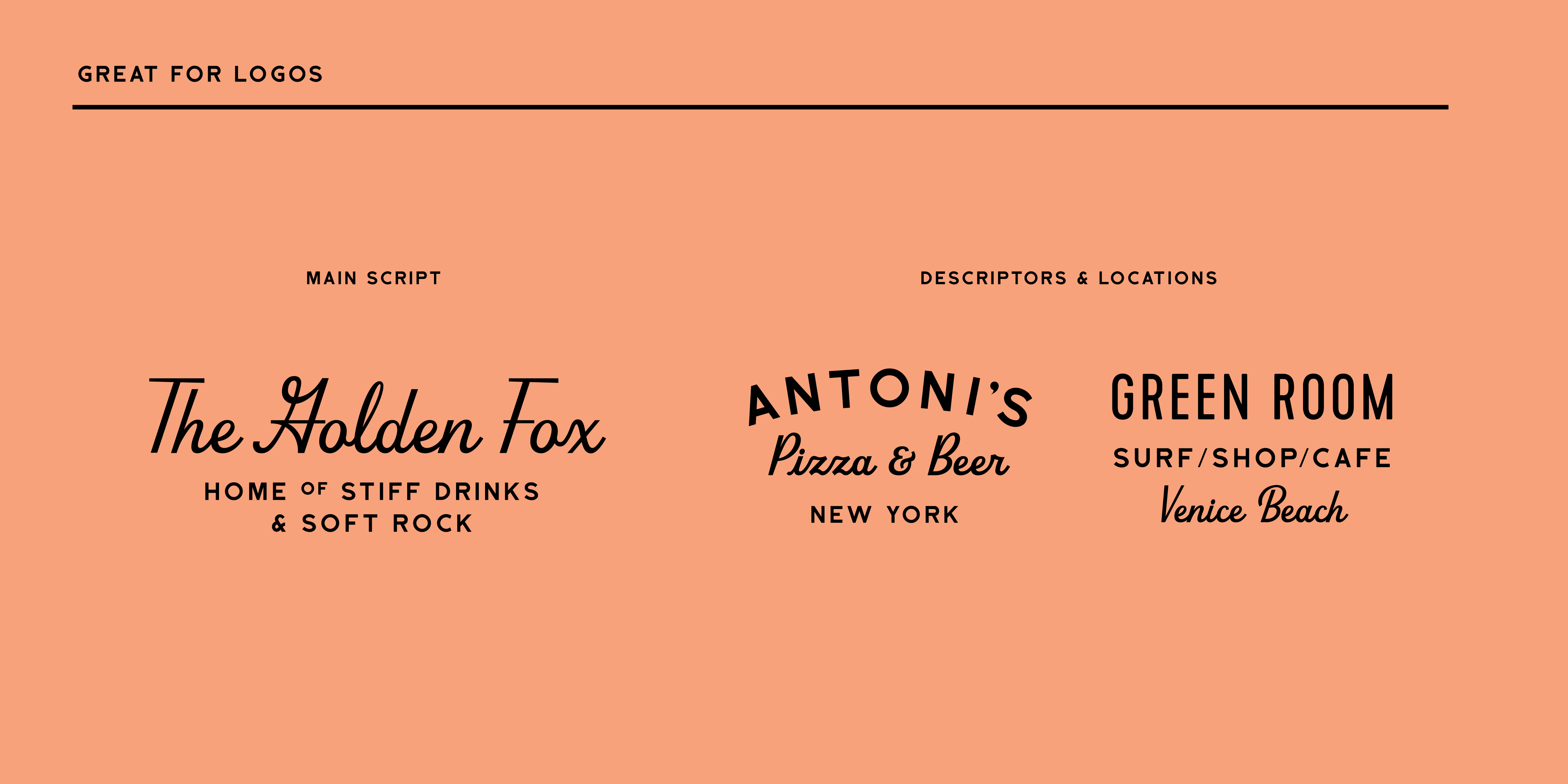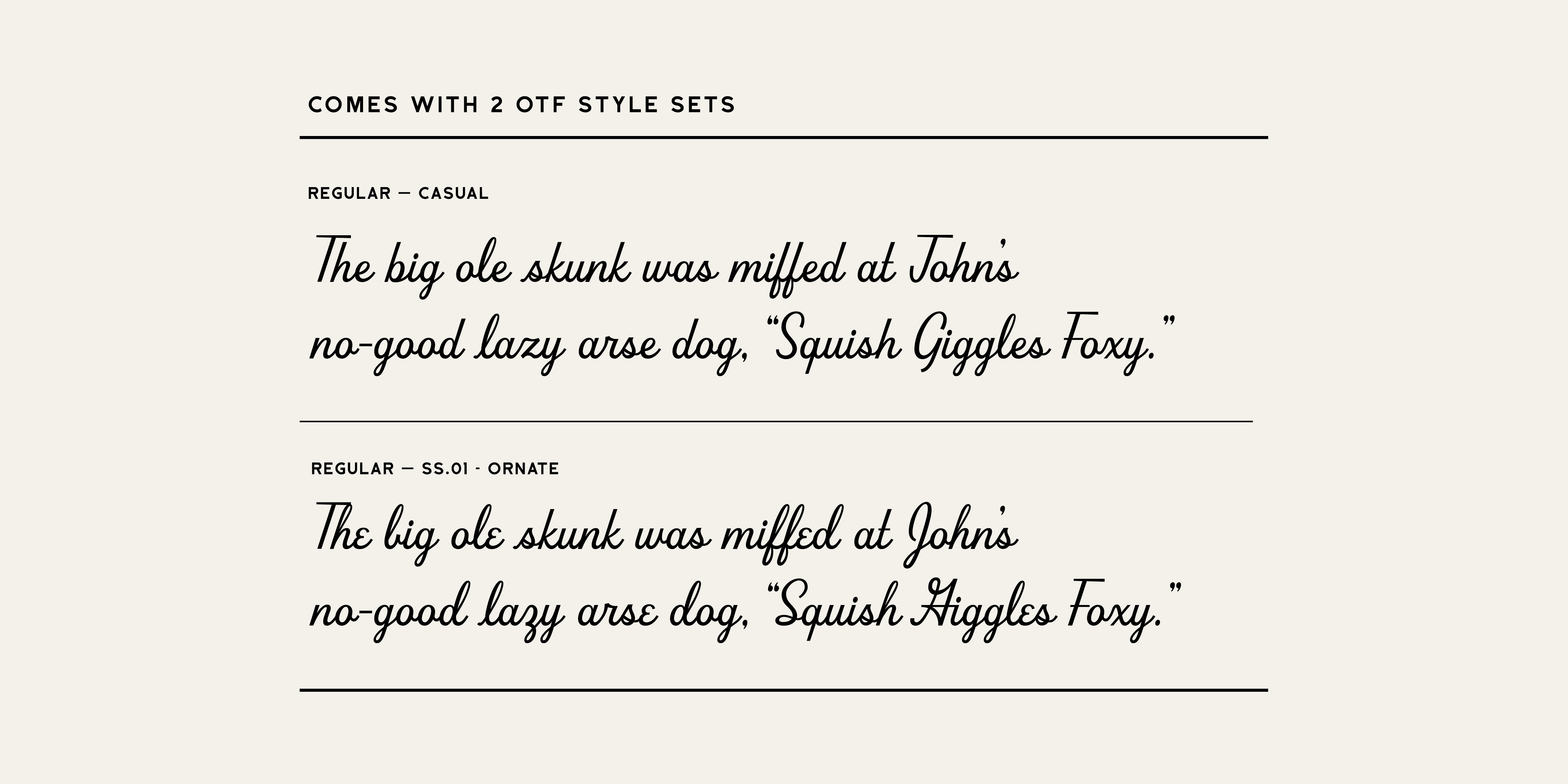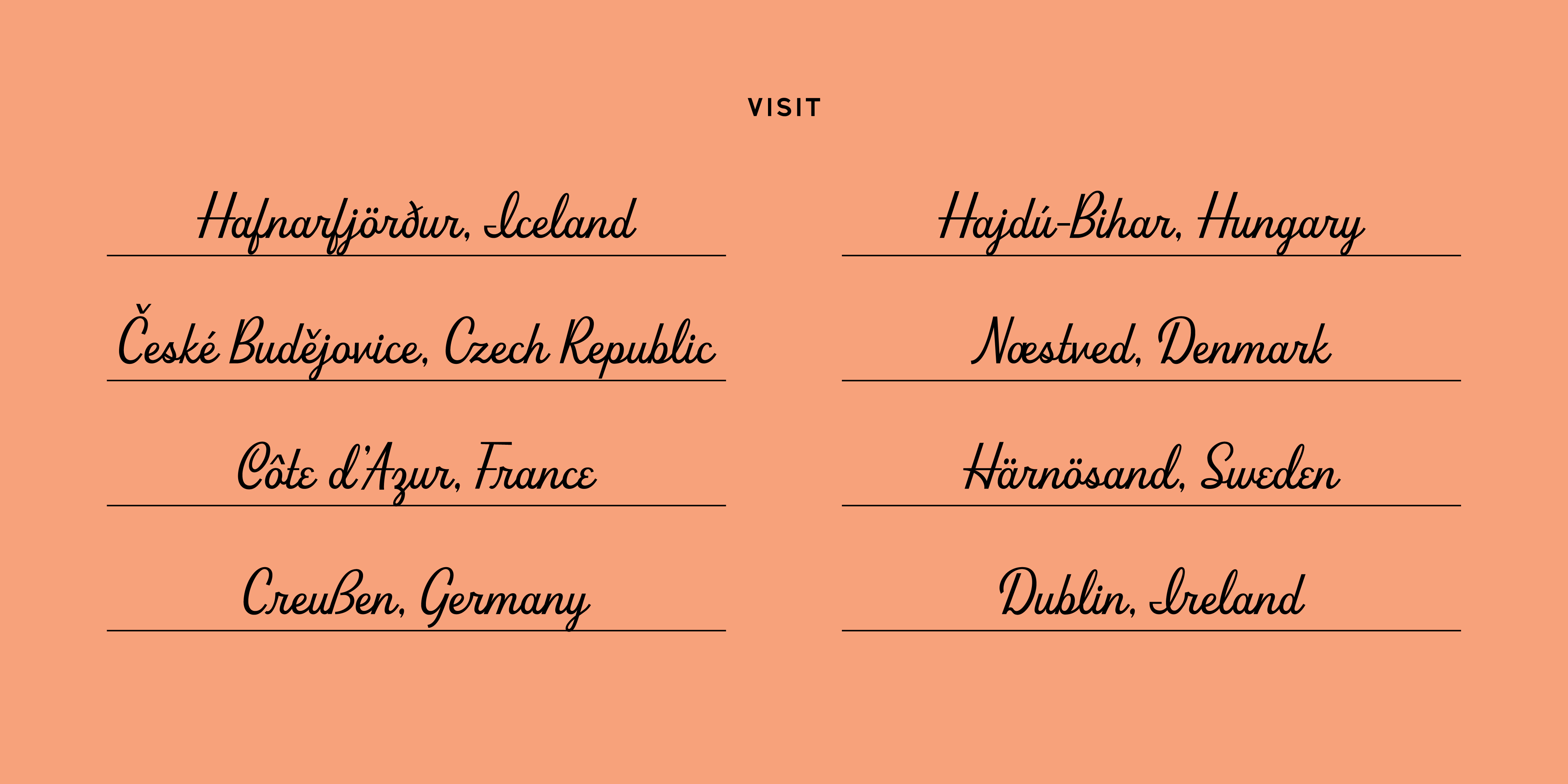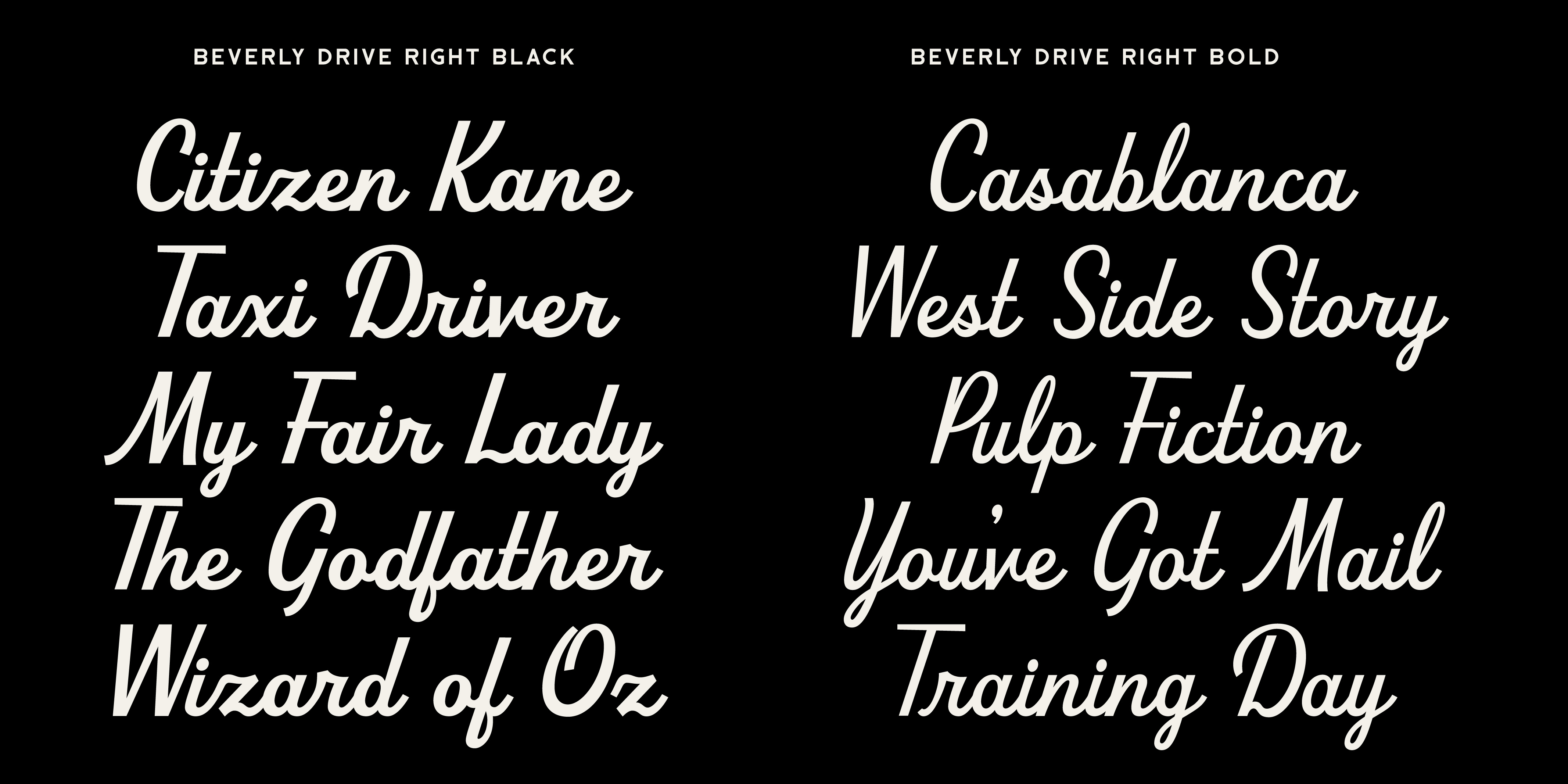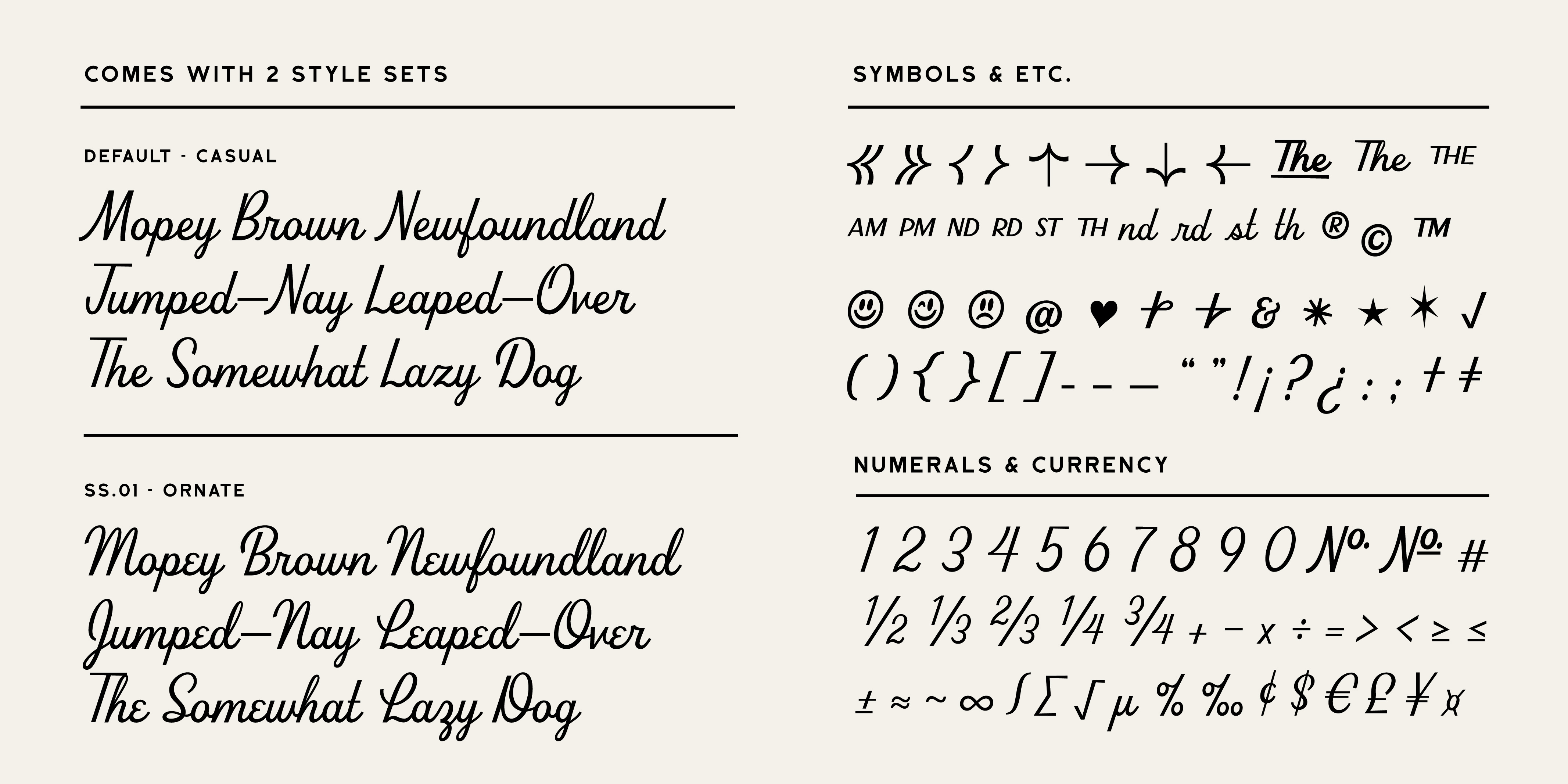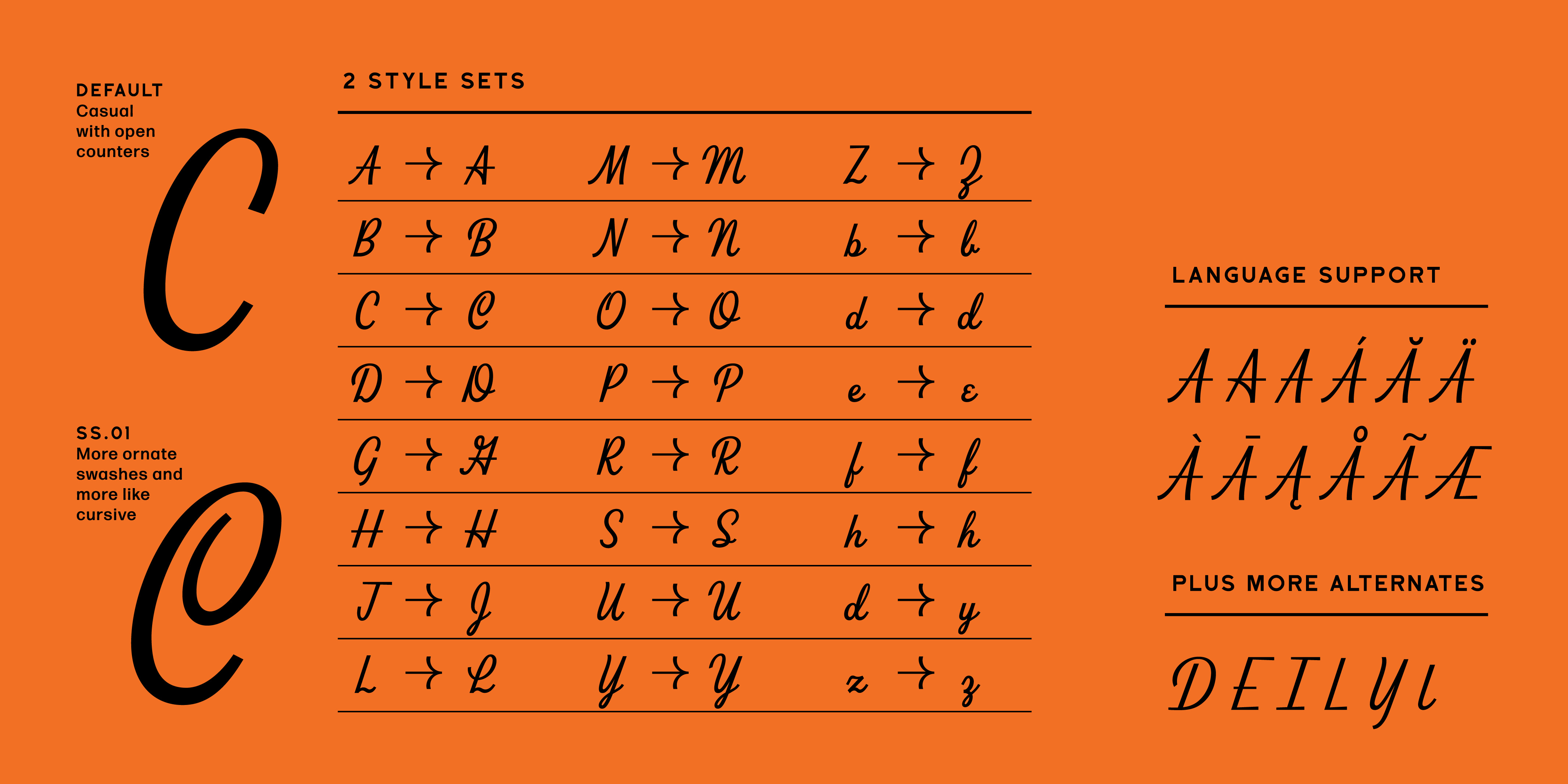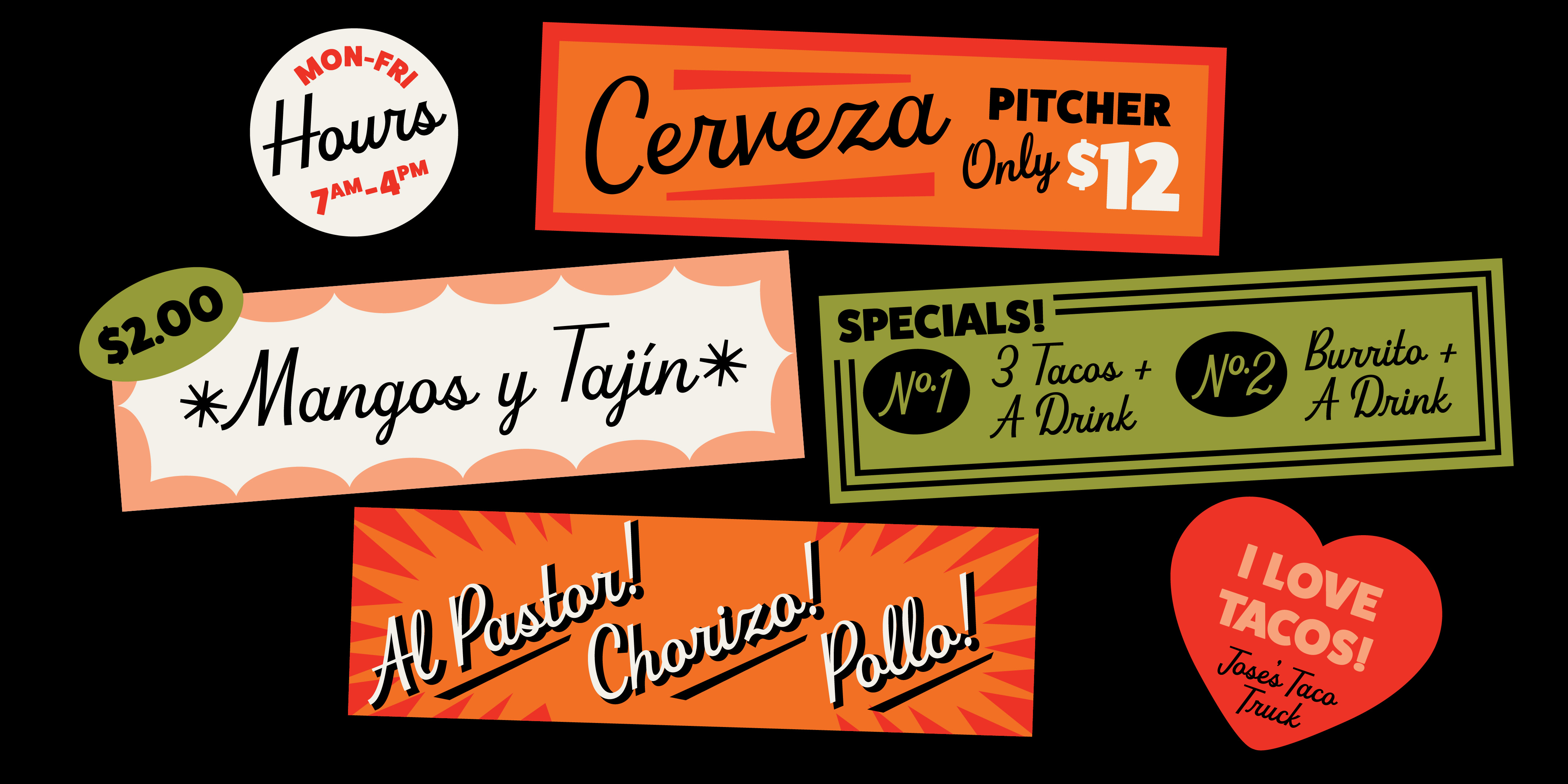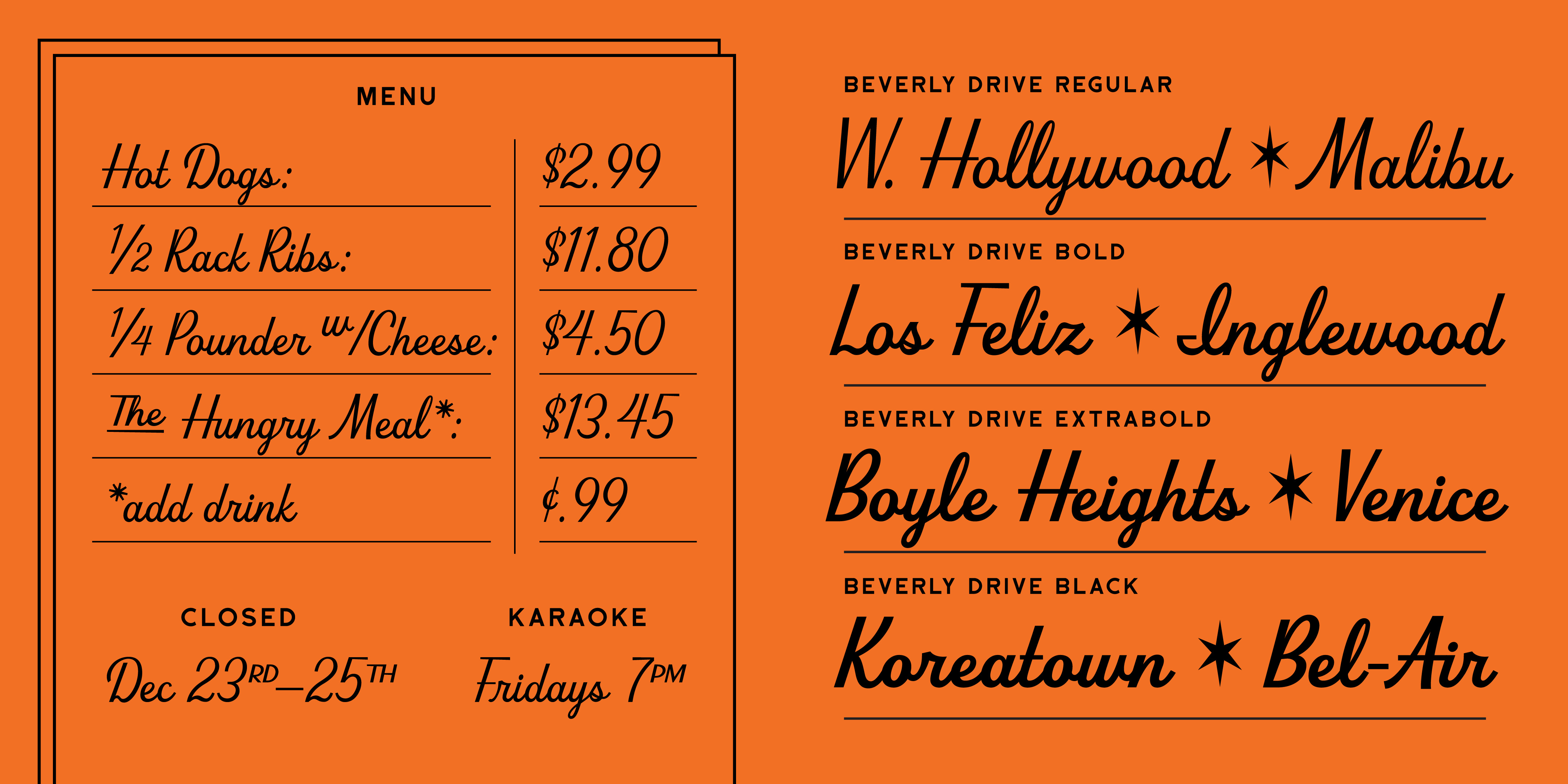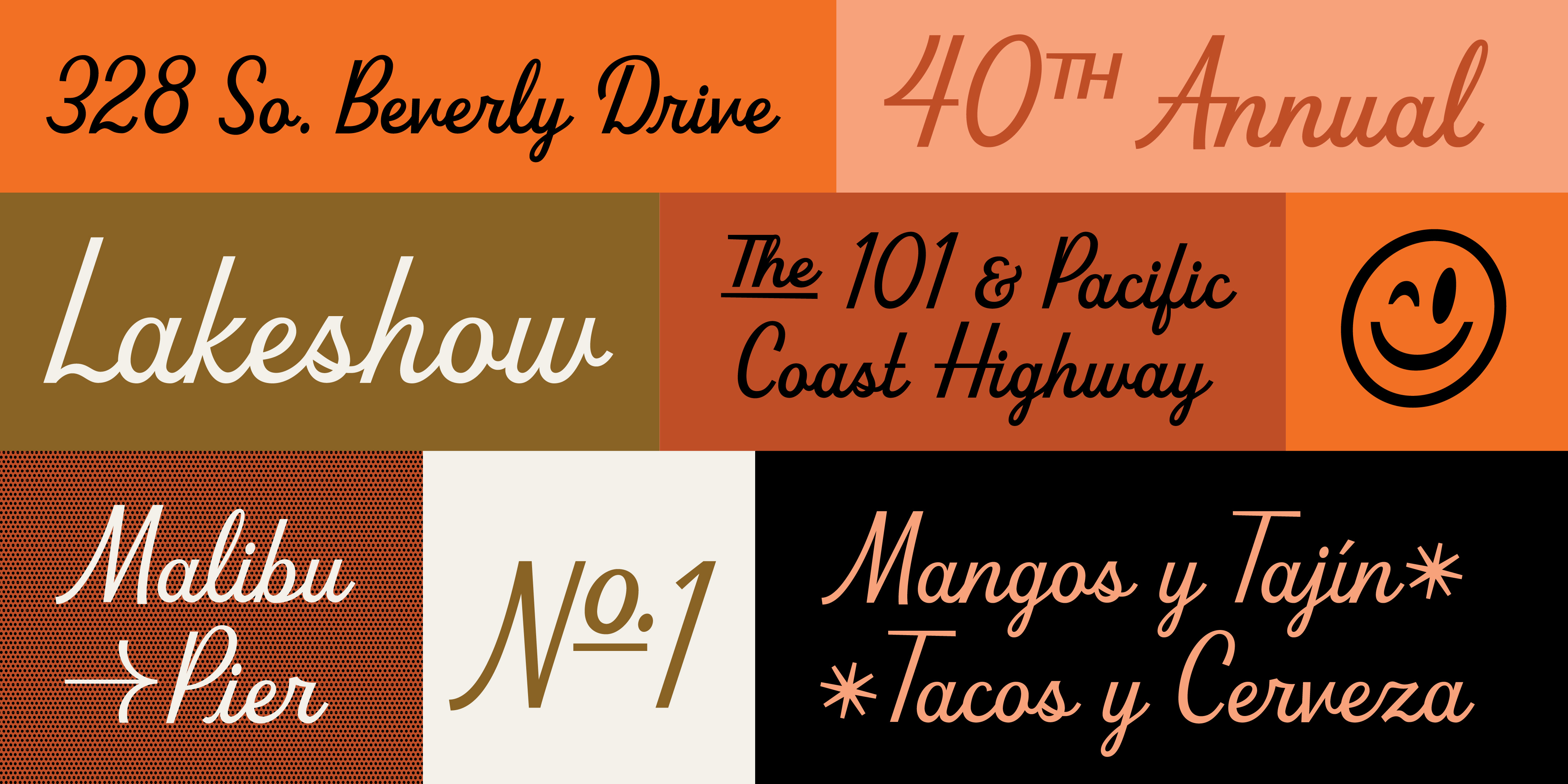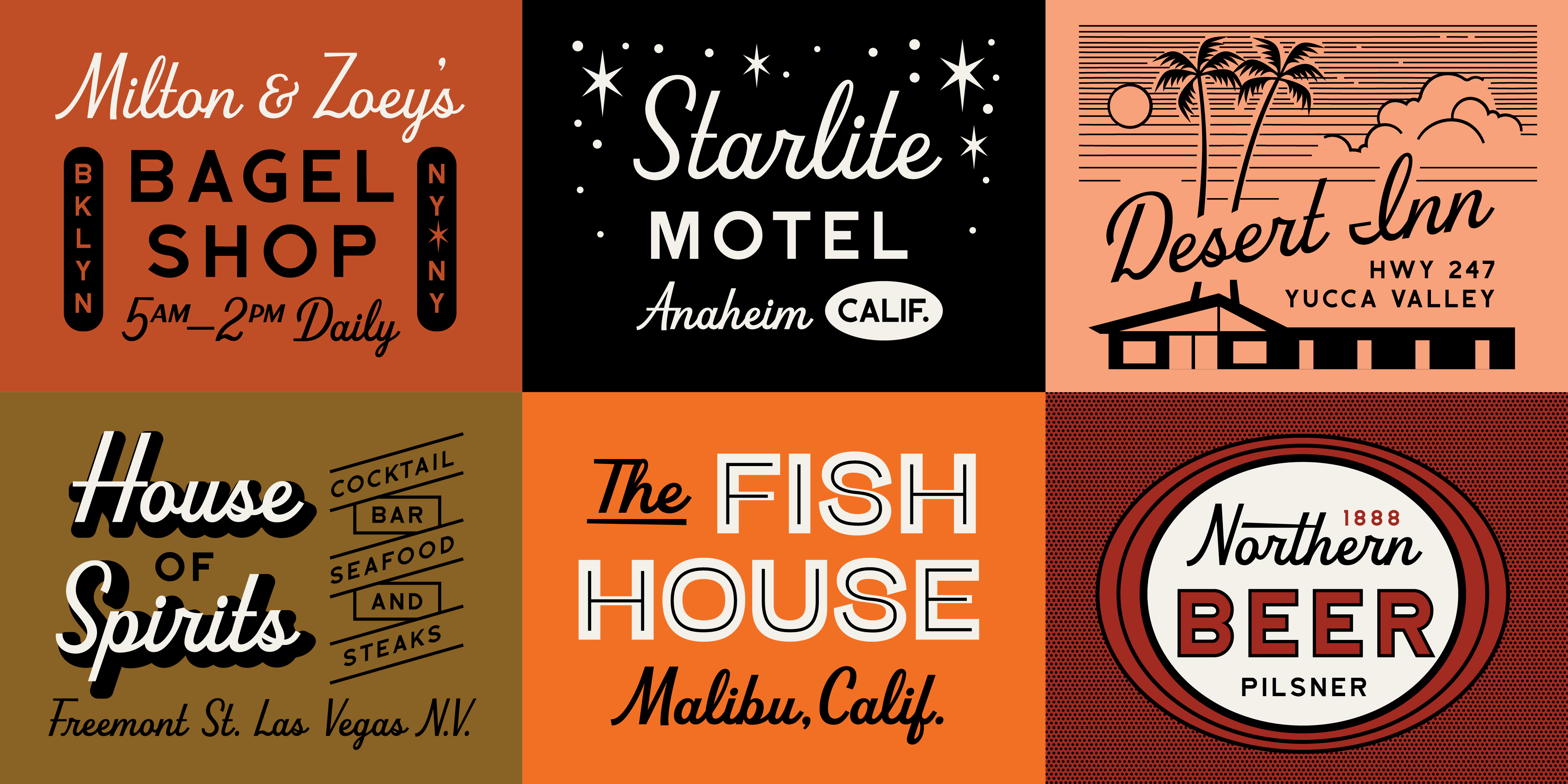
Beverly Drive Right
Script • 2 Styles
A retro script based on its left-leaning namesake.
Beverly Drive is a retro script font with a low x height, slightly exaggerated cap height, and 2 unique style sets to suit any occasion. You can dress up (holiday cards or wedding invitations) or dress down (restaurant logo or beer labels).